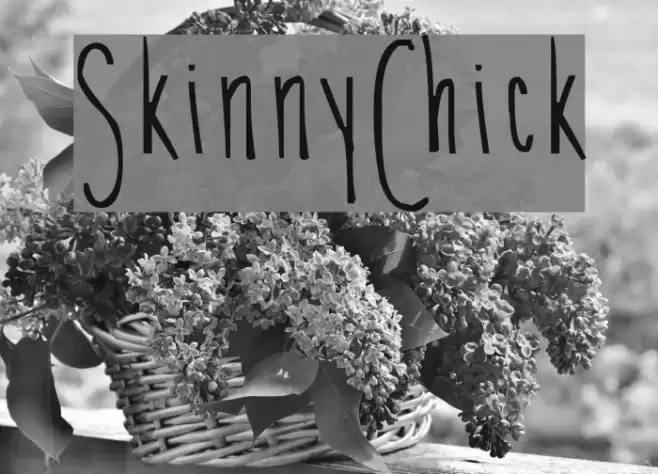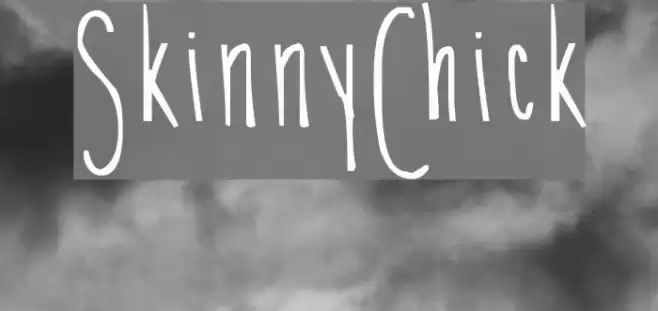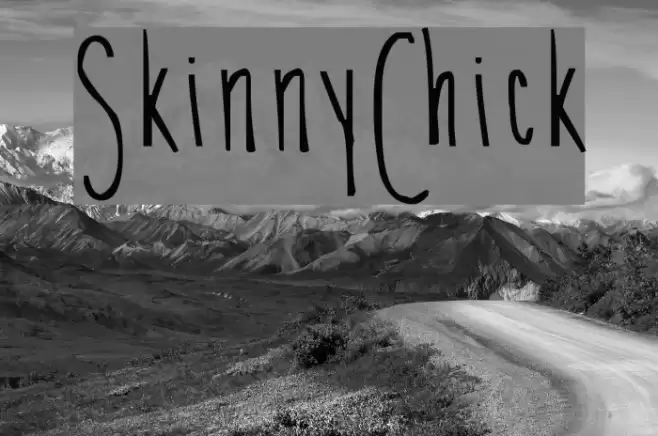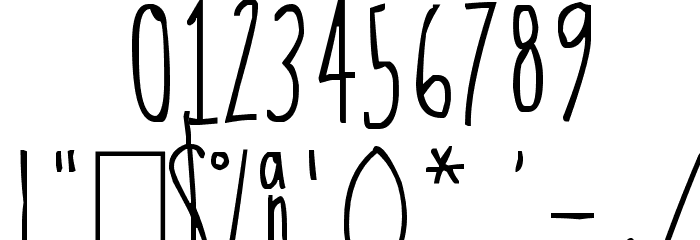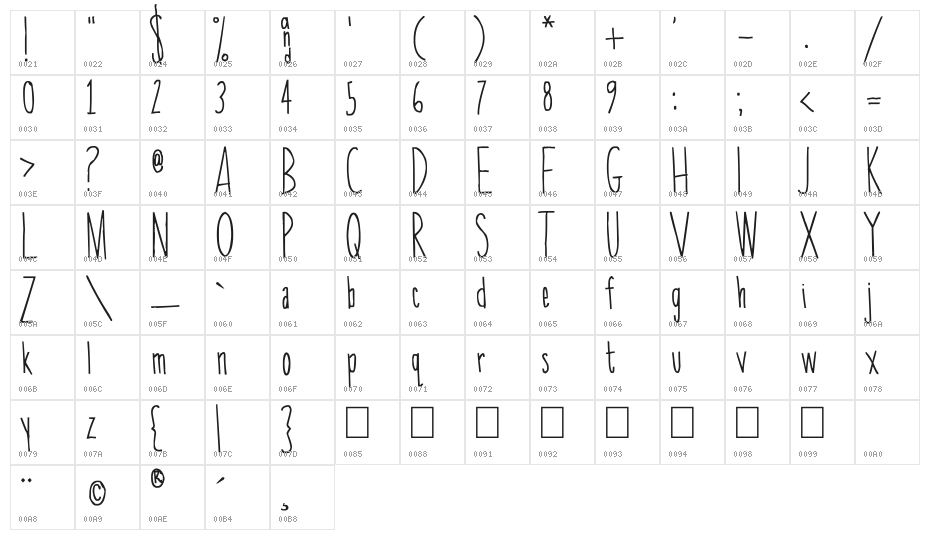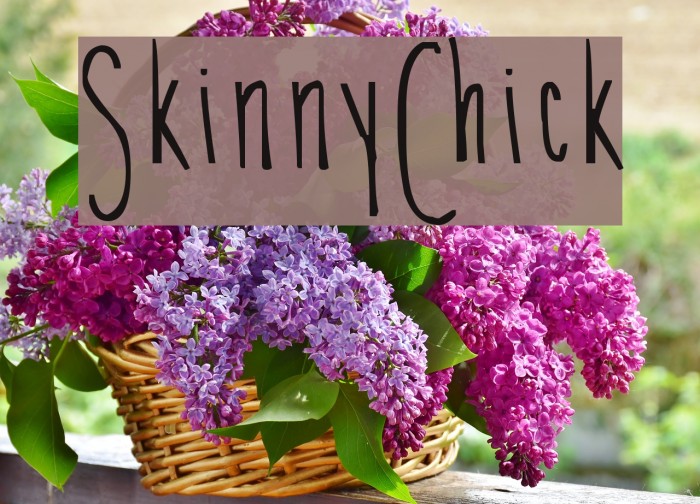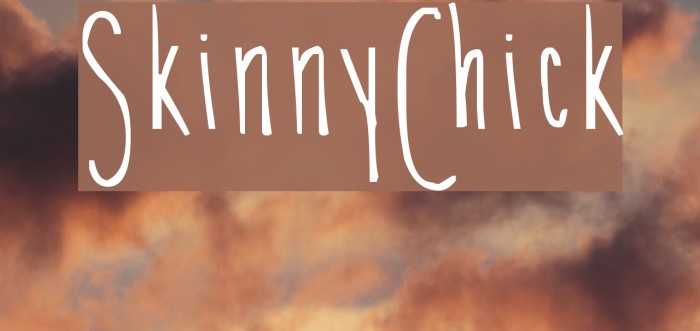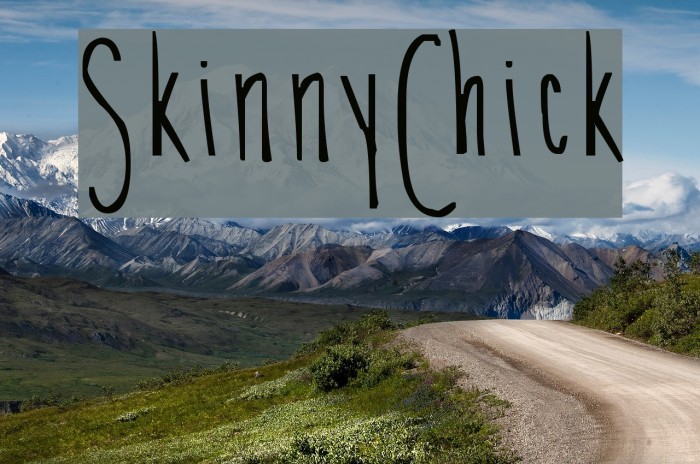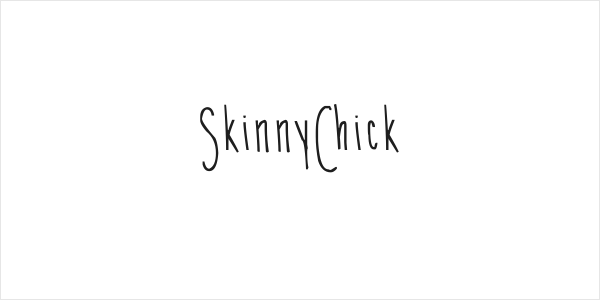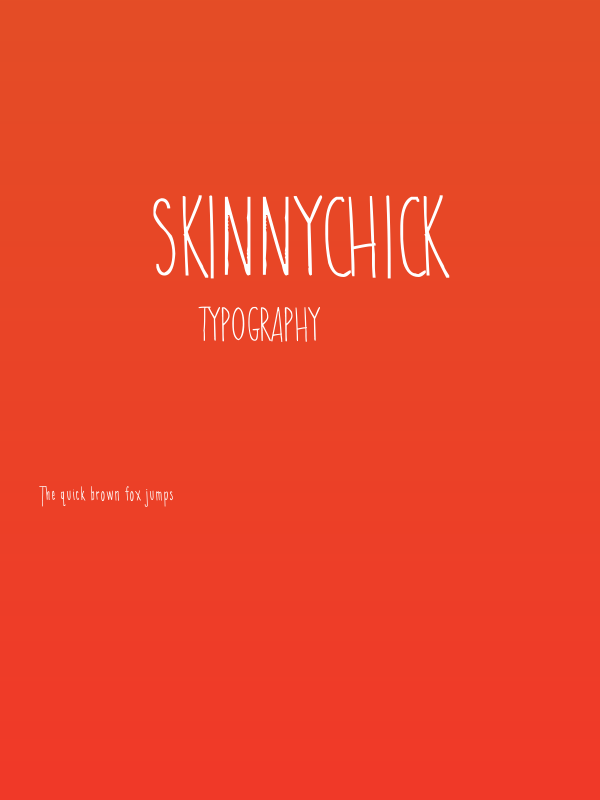
SkinnyChick Font
SkinnyChick Description
This font features a playful and quirky handwritten style, characterized by its tall, narrow letterforms and uneven stroke widths. The uppercase letters are particularly elongated, giving the font a distinctive, whimsical appearance. The lowercase letters maintain a consistent style, with a slightly more rounded and approachable feel. Numbers and special characters follow the same playful design, ensuring a cohesive look across all text elements. The font's irregularities and unique character shapes make it ideal for projects that require a personal touch or a sense of individuality.
A playful, handwritten font with tall, narrow letterforms and uneven strokes from Handwritten fonts.
- Proposed Projects: Ideal for greeting cards, children's books, creative posters, and personal branding.
- Use Case: Logos, Headlines, Creative projects